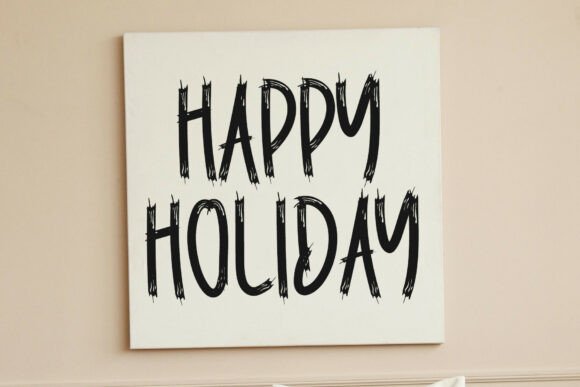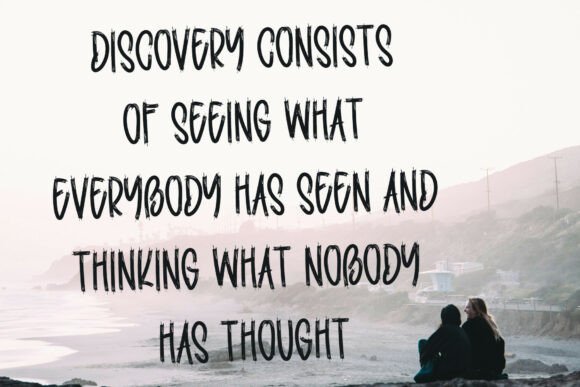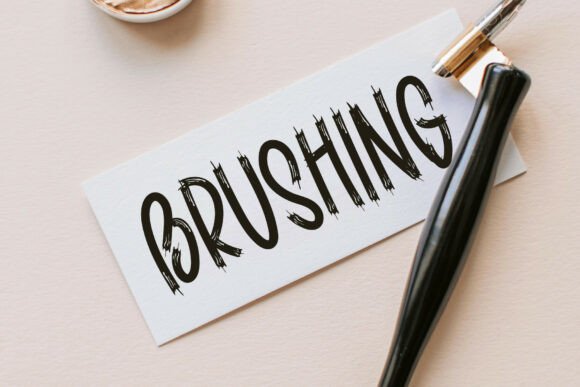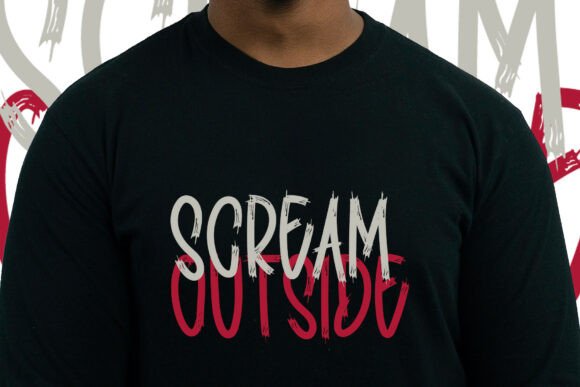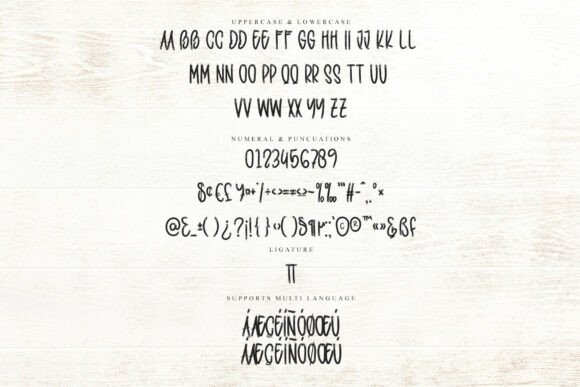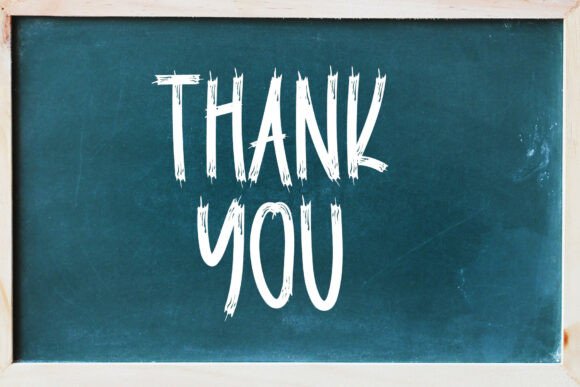
Introduction to Alphabet Destine Font
Have you ever stared at a blank canvas, waiting for the perfect spark to ignite your creative project? The Alphabet Destine Font is that spark, that rush of adrenaline that sets your designs ablaze. With its raw energy and street-art edge, this display typeface is the ultimate design resource for anyone looking to make a statement.
Whether you’re working on a music festival poster, a sports apparel campaign, or a gaming graphic, the Alphabet Destine Font is the perfect choice to cut through the noise and demand attention. Its unique distressed edges and heavy, solid structure make it incredibly powerful for headlines, posters, and YouTube thumbnails.
Key Features of Alphabet Destine Font
- High-quality design for a creative project, featuring a unique and stylish alphabet.
- Unique characteristics include a modern and elegant design, making it perfect for branding, typography, and creative projects.
Honest Review: Alphabet Destine Font
I recently came across the Alphabet Destine Font and was excited to give it a try in my creative project. The font has a unique and stylish design that’s perfect for making a statement. I was impressed with how well it paired with the transparent background I used for my design.
- What works well: ✨ The font is highly customizable, making it a great choice for designers who want to add a personal touch to their work.
However, I did encounter a few limitations while using the font. ⚠️ The font is not ideal for long blocks of text, as it can become difficult to read due to the unique design. Additionally, the font may not be compatible with all operating systems, which could be a concern for some designers.
Overall, I was impressed with the Alphabet Destine Font and would definitely consider using it again in the future. While it may have some limitations, the unique design and high-quality make it a valuable design resource for any creative project.
The Alphabet Destine Font is commonly used in a variety of creative projects, including branding, logos, and marketing materials. Its high-quality design and versatility make it a popular choice among designers.